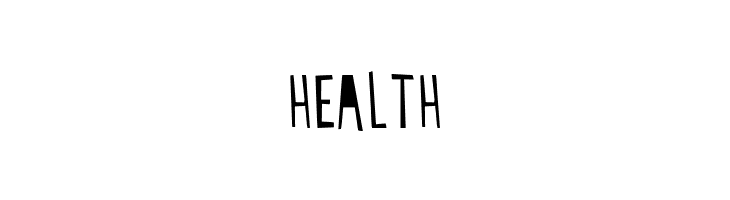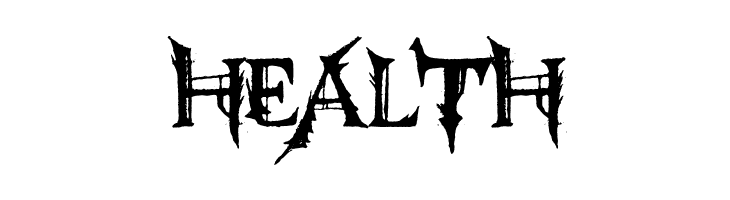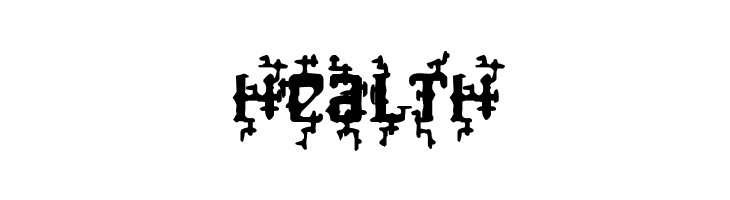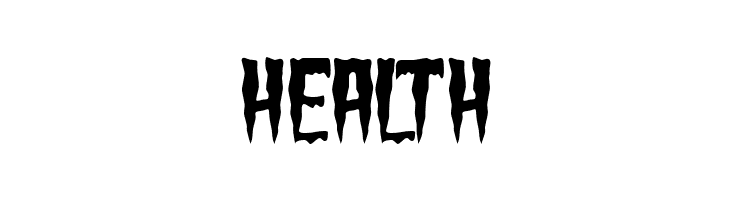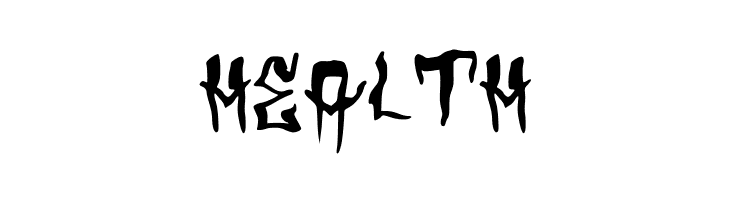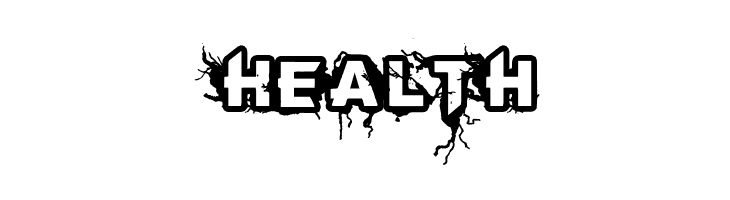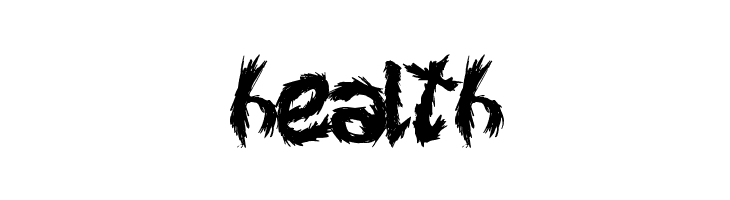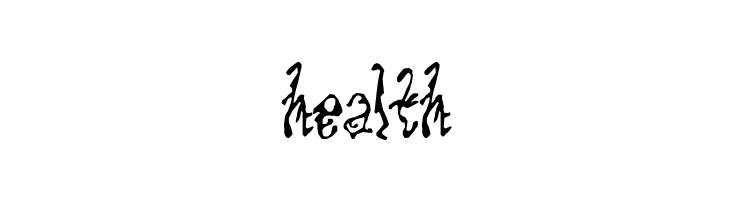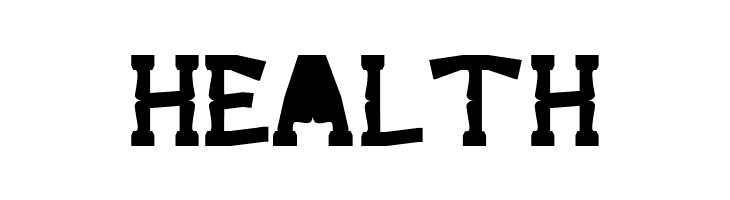
An artistic, irregular font with jagged edges and a hand-crafted appearance.
A bold, edgy font with sharp, jagged edges and a distressed, rebellious style.
A bold, jagged font with a spooky, horror-themed design.
A bold, distressed font with a grungy, cracked texture and jagged edges.
A chaotic and decorative font with jagged, energetic characters.